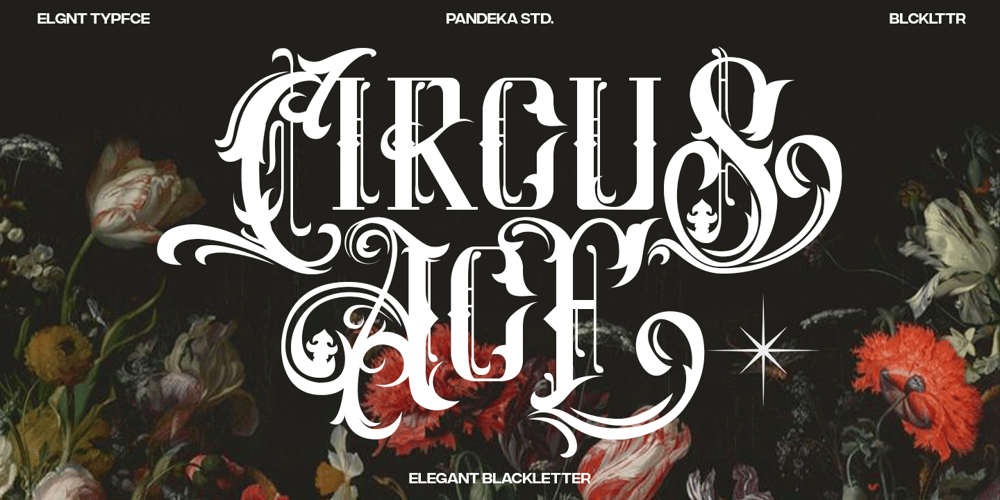
Circus Ace Font Family was designed by Sagara Nararya and published by Pandeka Studio. Circus Ace contains 2 styles and family package options. Circus Ace is a font inspired by the Blackletter typeface, made with a modern impression but still looks strong and unique. Supported by alternative options such as swash, ligature and alternative characters, making Circus Ace Typeface Blackletter very easy to create designs with strong or dark themes.Circus Ace Typeface is very suitable for use in making music album cover designs, tattoo logos, wishkey labels, packaging pomades and so on which are made with blackletter concepts.What’s Included? Circus Ace main file Regular & Expanded 102+ Special Alternates and Ligatures Instructions (Access special characters in all apps, even in Cricut Design) Accessible in Adobe Illustrator, Adobe Photoshop, Microsoft Word even Canva! PUA Encoded Characters. Fully accessible without additional design software We highly recommend using a program that supports OpenType features and Glyphs panels like many of Adobe apps and Corel Draw, so you can see and access all Glyph variations.Thank youPandeka Studio